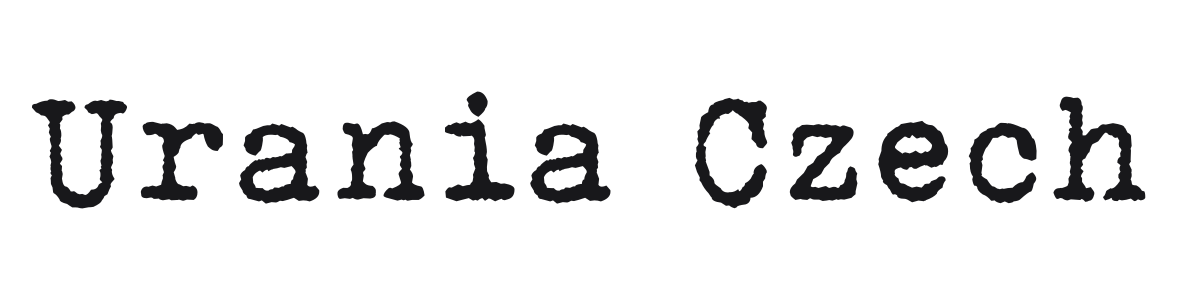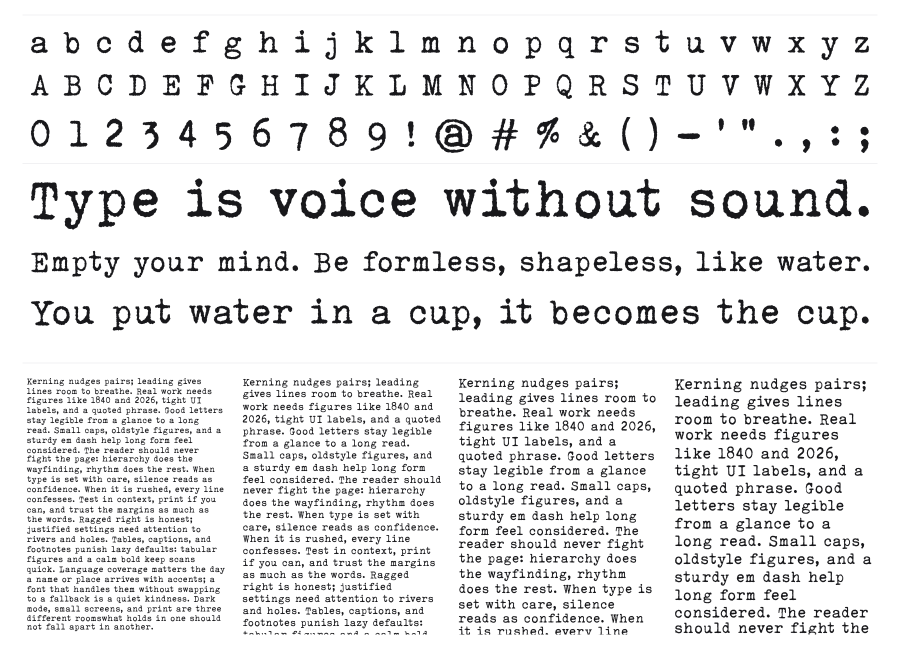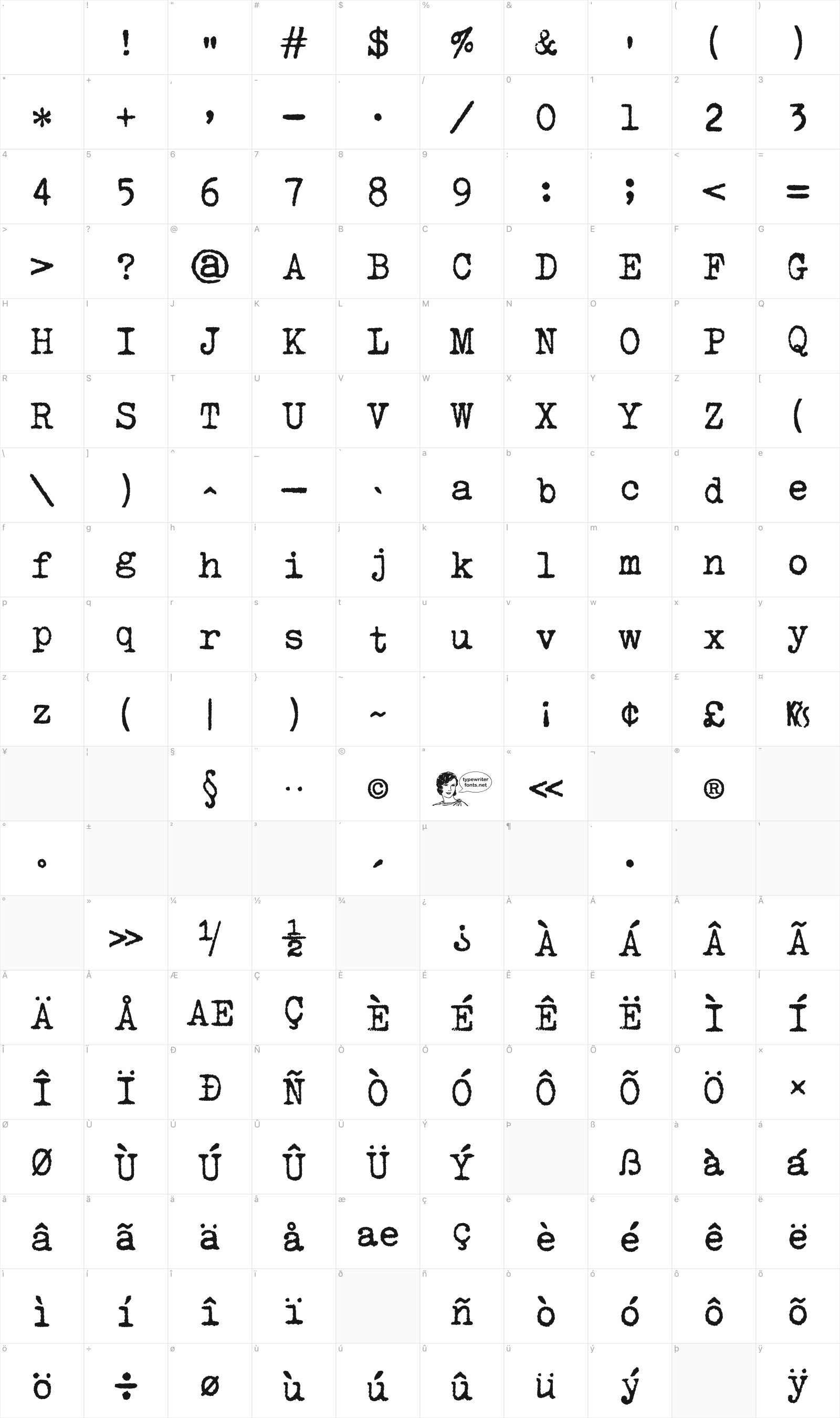
Urania Czech
Urania Czech is a typewriter-style font created by Czech designer Lukas Krakora, built to capture the rough, ink-laden charm of a real mechanical typewriter. Characters carry deliberate imperfections: uneven strokes, textured edges, and the subtle misregistration that makes old typed pages feel alive. It brings instant vintage credibility to editorial work, posters, and branding that needs a tactile, handmade quality.